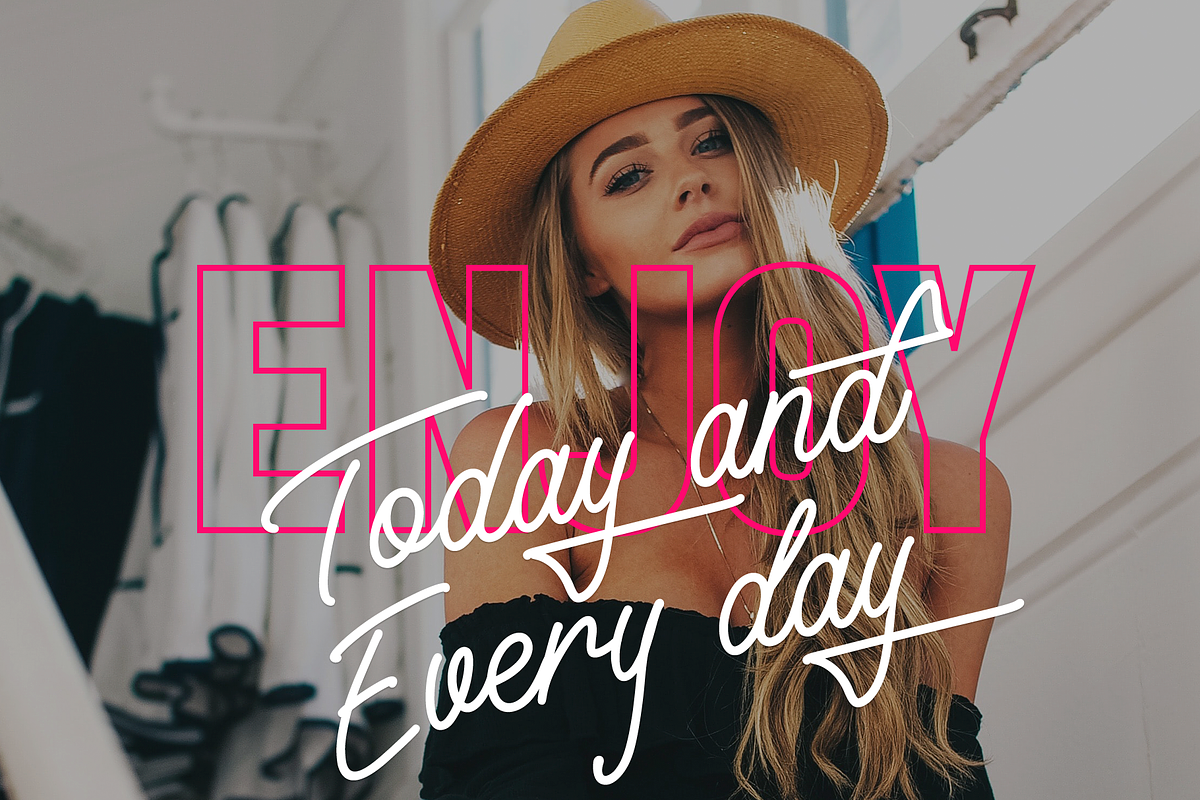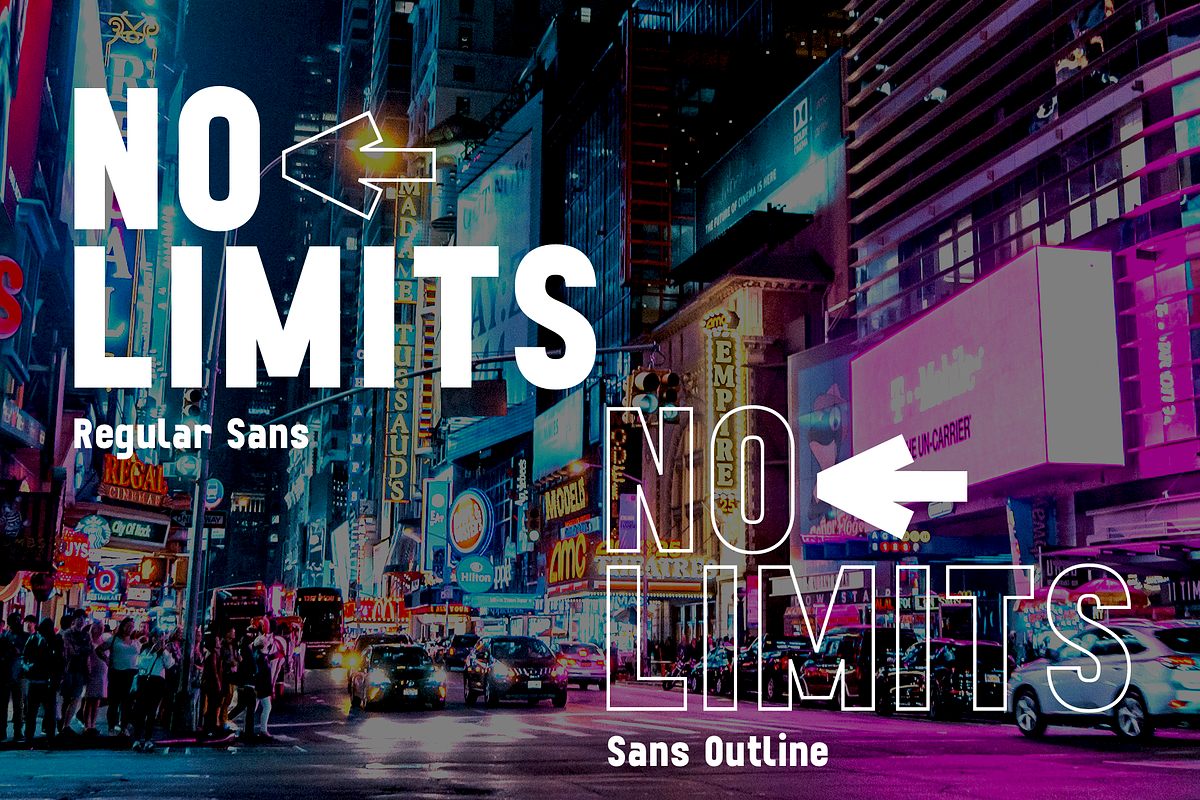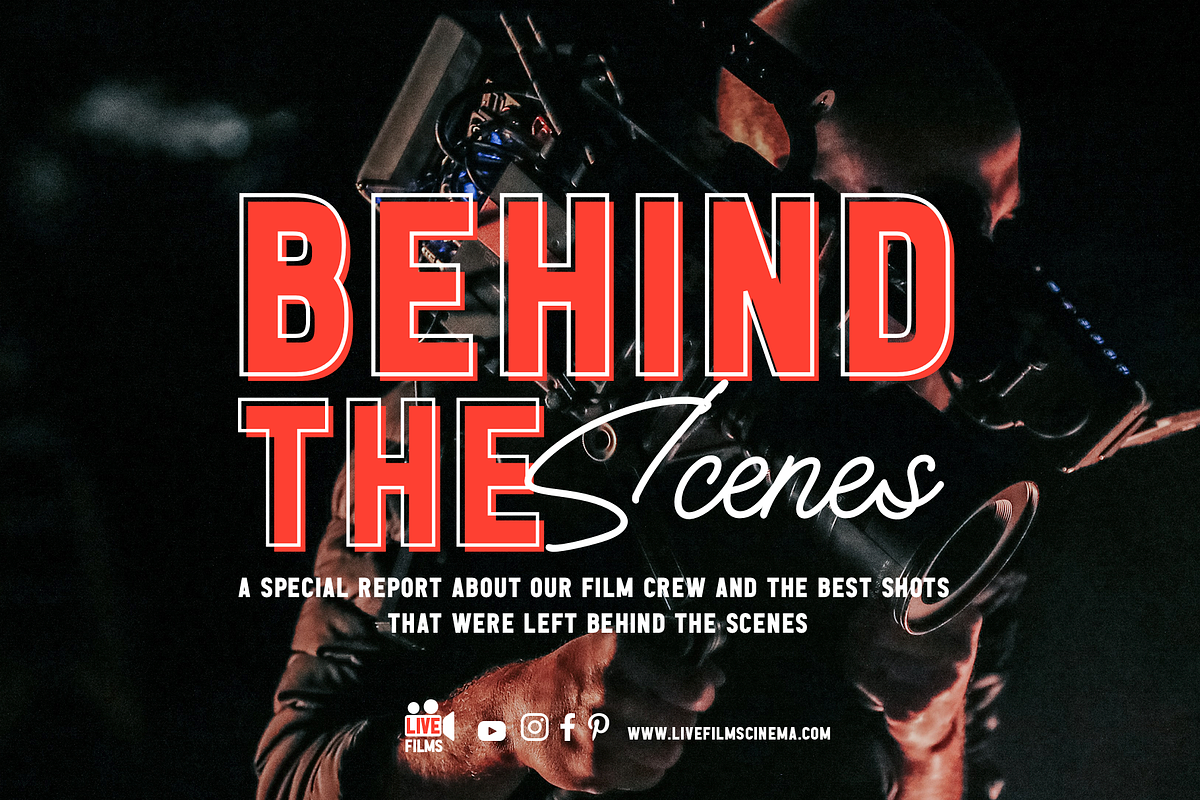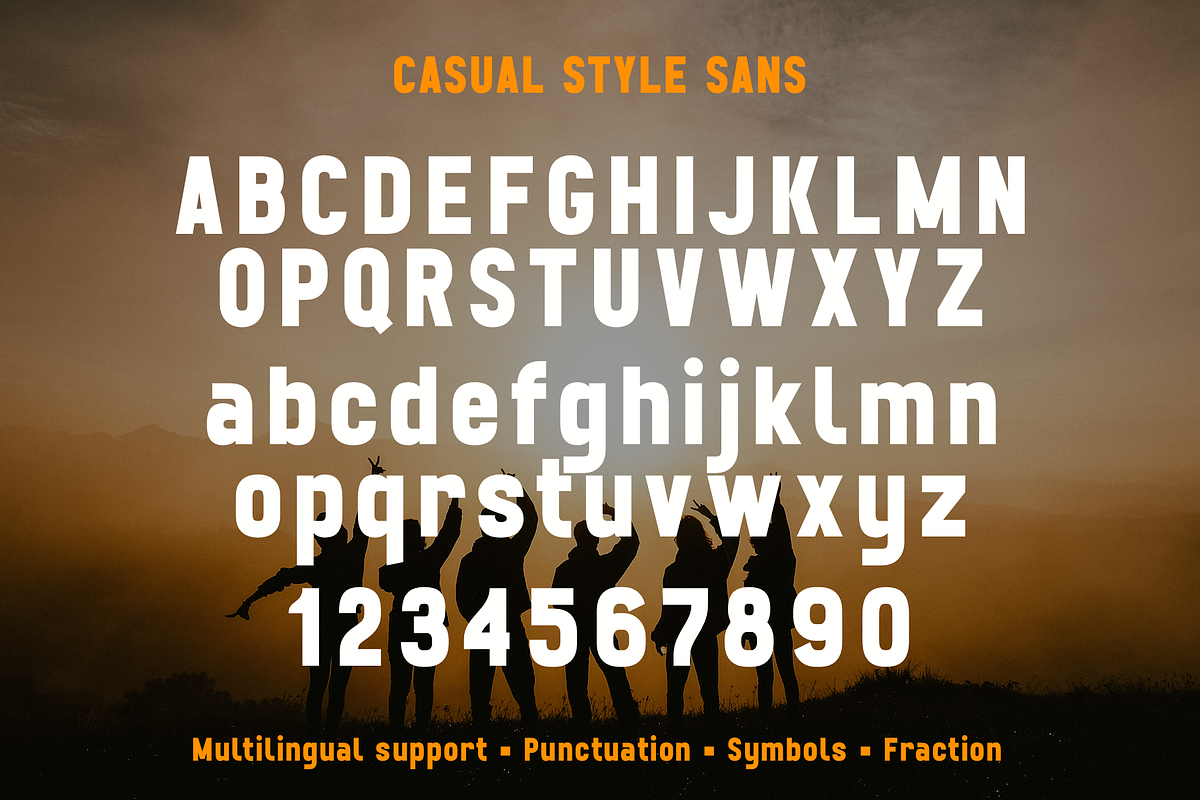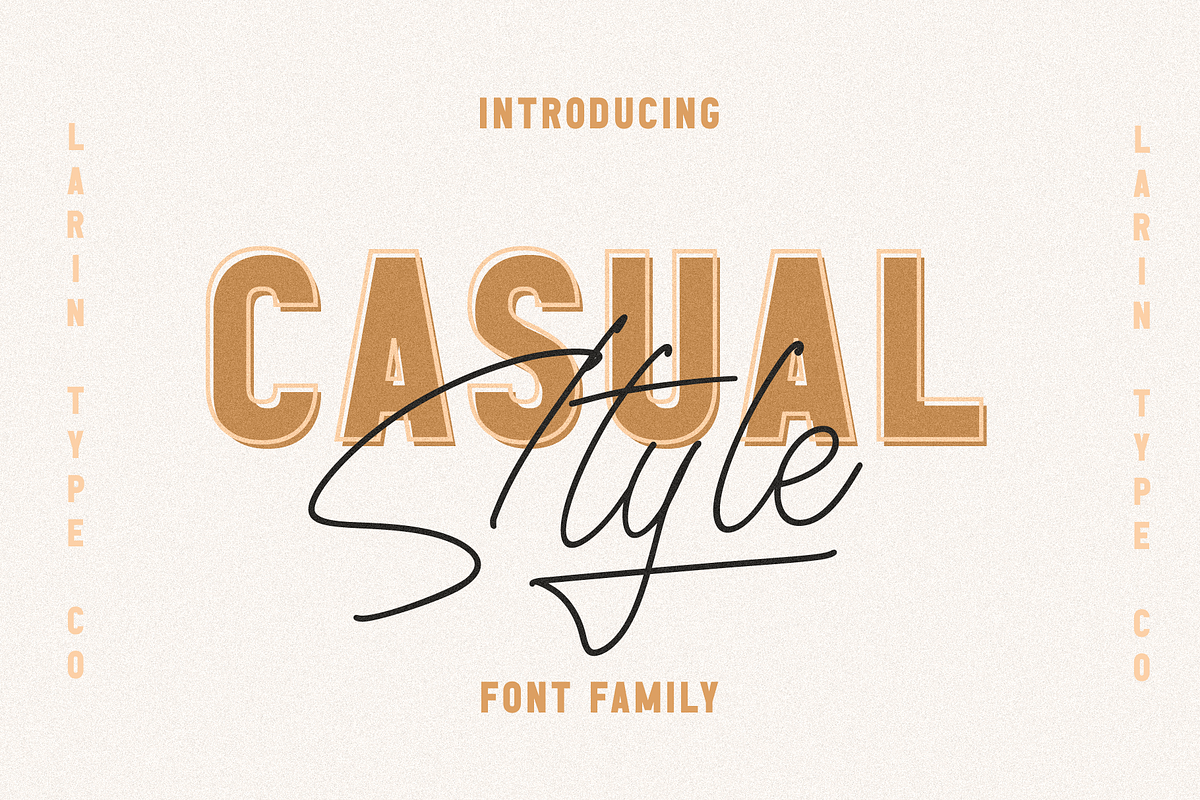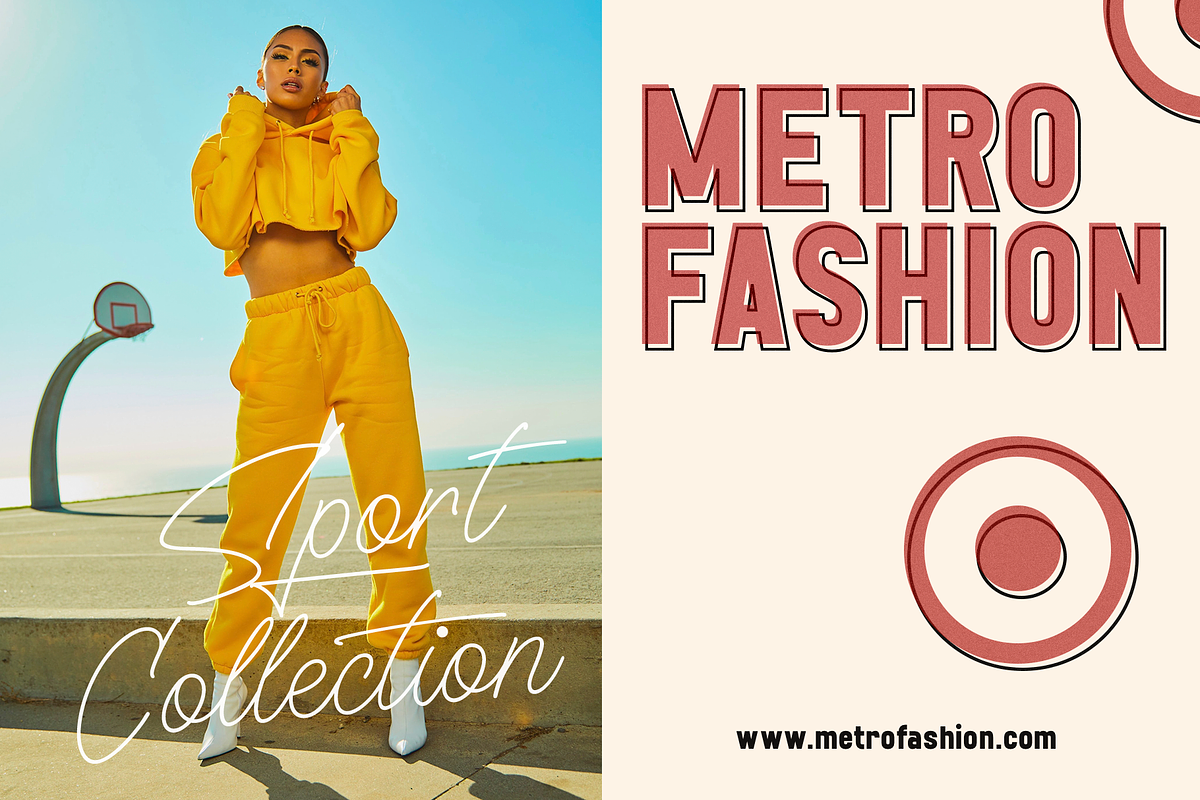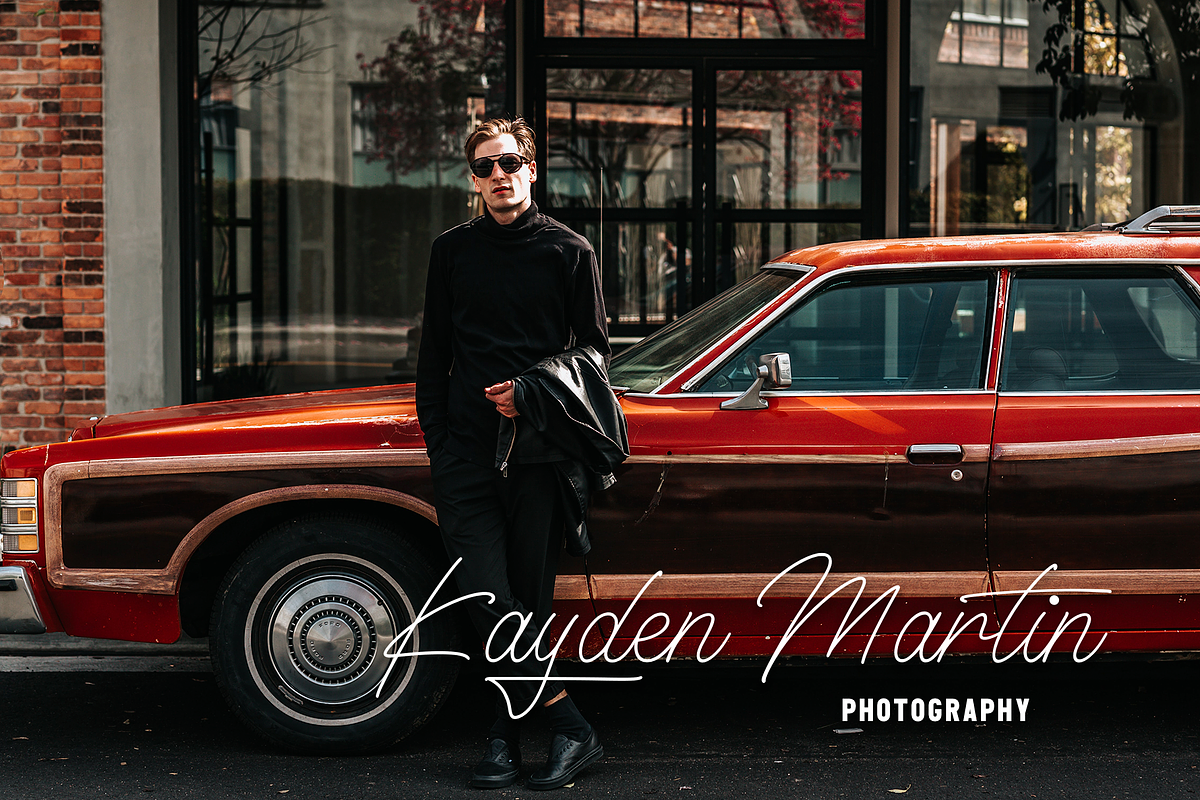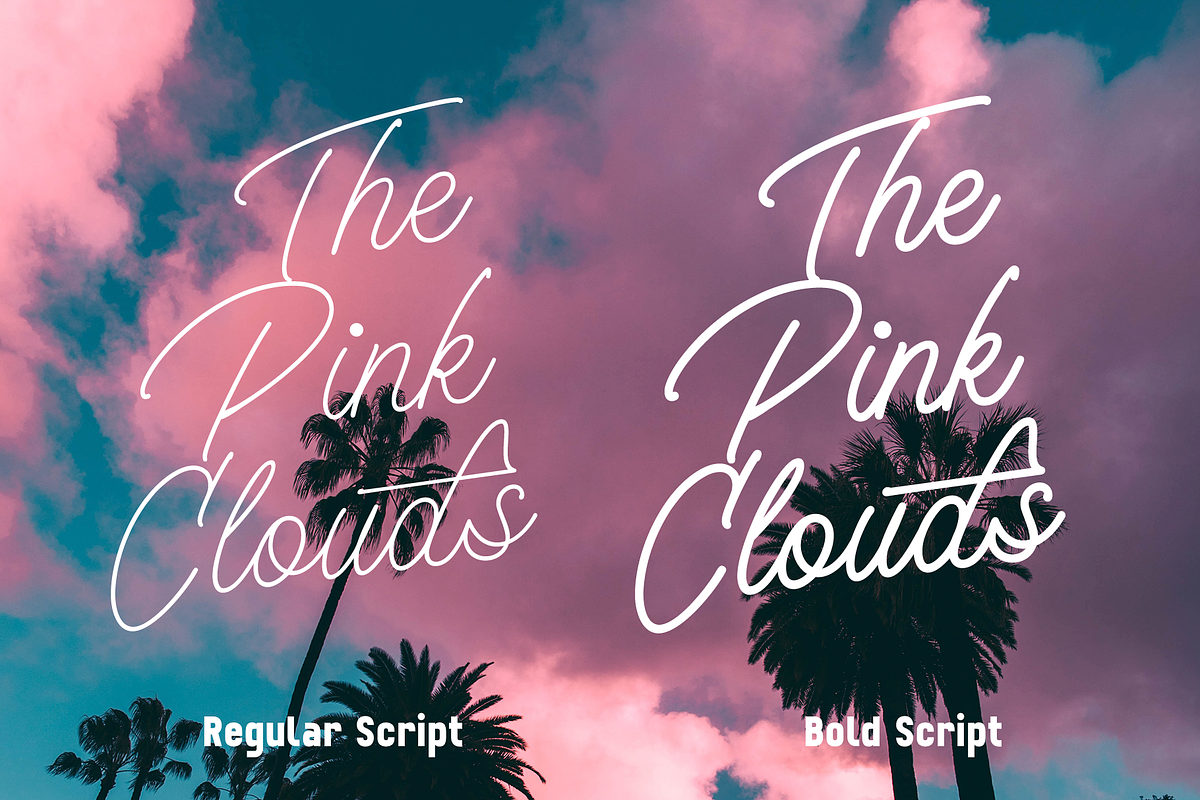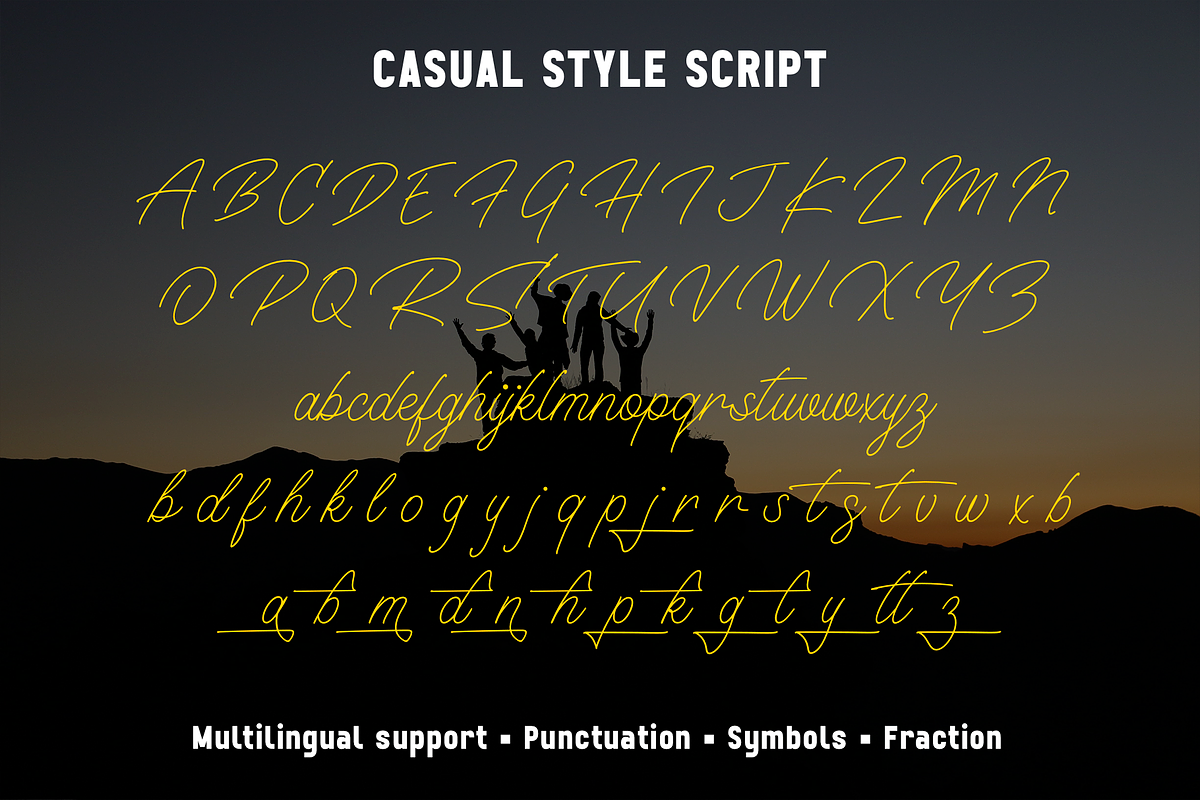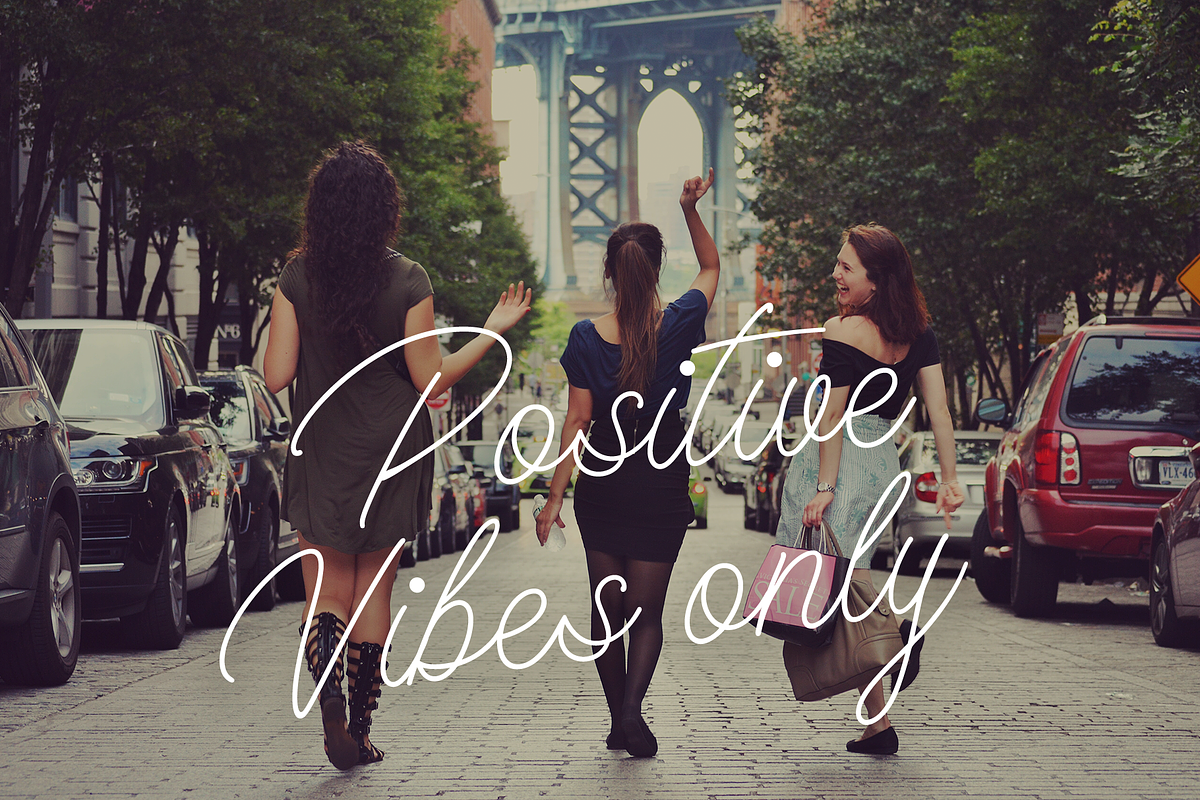
Casual Style
Casual Style This is an excellent font family that includes ( script, bold script, sans serif and outline sans serif). These are multi-purpose fonts and they are suitable for all kinds of design, from modern fashion projects to vintage logos, editorial designsand, headlines, advertising and much more.
Following international symbols support: ÀÁÂÃÄÅĄÇĆÈÉÊËĘÌÍÎÏÐÑŃŁÒÓÔÕÖØÙÚÛÜŚŠŸÝŹŻŽßàáâãäåçèéêëìíîïðñòóôõöøùúûüýÿąćęłńśšźżž
Full alphabet with Uppercase and Lowercase A-z for Sans and Script
Numbers, fractions for Sans and Script
Punctuation and symbols for Sans and Script
Alternates for Lowercase for Script